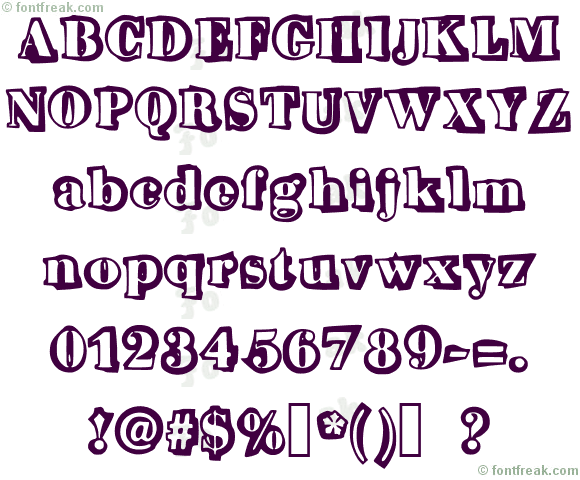
Morris
About Morris
The Morris font, created by Leonard Posavec and available for free download, is a playful and engaging display typeface that captures attention with its unique characteristics. This font falls into the category of decorative typefaces, showcasing a distinct style that blends whimsy with readability. The strokes of the Morris font have a bold weight, offering a delightful contrast that enhances its visual appeal. The slightly uneven letterforms contribute to its handcrafted look, making it feel both personal and artistic. The spacing is well-considered, ensuring that each character stands out without overwhelming the viewer.
Morris is particularly well-suited for various creative applications. It can be an excellent choice for wedding invitations, adding a touch of charm and personality to the formal event. Additionally, its fun and inviting style makes it perfect for children's book covers, where capturing the imagination is key. Restaurant menus can also benefit from the Morris font, helping to convey a friendly and casual dining experience. Furthermore, it works wonderfully for promotional posters, especially in community events or local markets, where a vibrant and approachable look is desired.
The target audience for the Morris font includes graphic designers, small business owners, and content creators looking to add a distinctive flair to their projects. Its versatility and engaging style make it a valuable addition to any designer's toolkit.
What truly sets the Morris font apart is its ability to evoke a sense of warmth and creativity. With its handcrafted feel and playful aesthetics, it invites viewers to connect with the message being conveyed. Downloading the Morris font for free provides an opportunity to infuse your designs with personality and charm, making it an excellent choice for anyone looking to stand out in their creative endeavors.